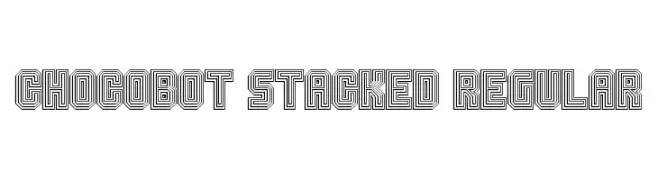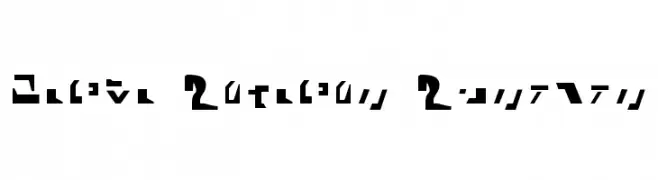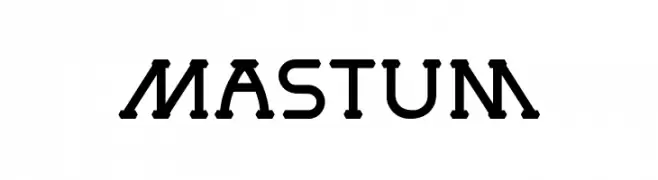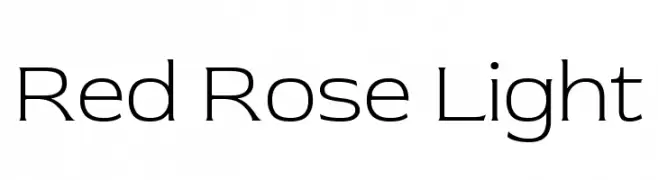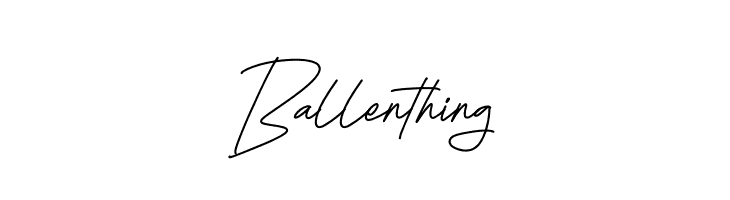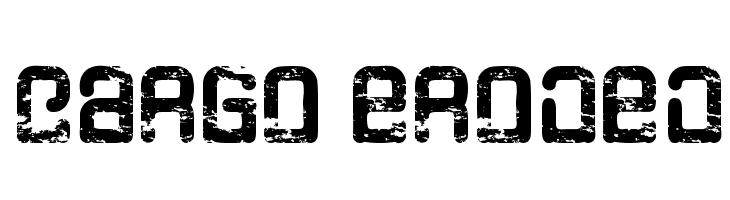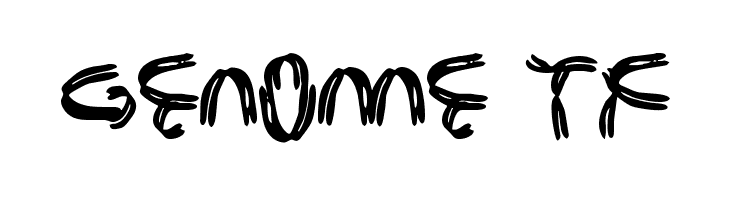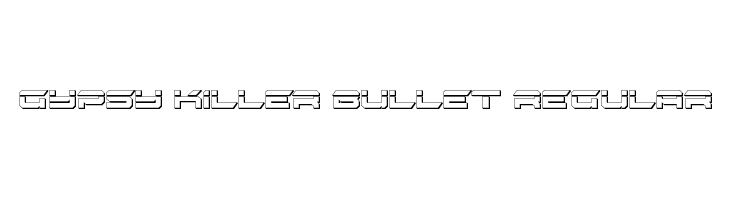
A tall, narrow serif font with high contrast and elegant serifs.
A bold, geometric font with a stacked, three-dimensional appearance.
A bold, playful font with whimsical curves and a modern decorative style.
A bold, left-slanted, and highly stylized decorative font with an expanded width.
A futuristic, geometric font with bold, angular shapes and a mysterious, ancient script vibe.
A bold, geometric serif font with a modern and classic blend.
A bold and italicized font with strong, dynamic strokes.
A modern sans-serif font with smooth curves and balanced proportions.
A bold, fiery font with jagged, flame-like edges and a dynamic, energetic style.